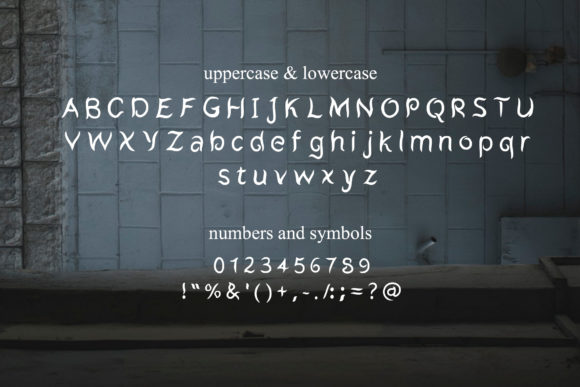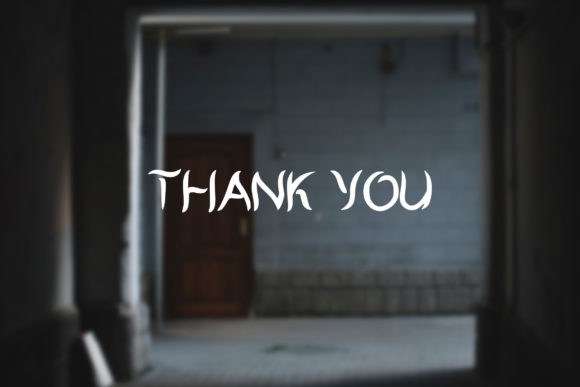
Introduction to Satire Font
Remember that moment when you’re brainstorming ideas for your next creative project, and suddenly, the perfect font pops into your mind? It’s like the missing piece of a puzzle that brings your entire concept to life. For many designers, that moment is often associated with the search for the perfect display font. And if you’re looking for a font that exudes elegance and sophistication, you’re in luck! Introducing the Satire Font, a stunning calligraphy-style display font that’s sure to elevate your designs to the next level.
The Satire Font is a versatile design resource that can be used for a wide range of creative projects, from invitations and greeting cards to branding materials and business cards. Its beautiful, high-quality design makes it perfect for quotes, posters, and any other project where a touch of sophistication is needed.
Key Features of Satire Font
- High-quality, unique typography with a satirical tone, perfect for creative projects and design resources.
- Designed to be highly legible, even at small font sizes, making it an ideal choice for design resources and creative projects.
- Comes in a range of styles, including bold, italic, and regular, to provide versatility and flexibility in your design.
Honest Review: Satire Font
As a designer, I’m always on the lookout for high-quality design resources to elevate my creative projects. The Satire Font caught my attention, and I’m excited to share my honest review.
- ✨ Unique aesthetic: The Satire Font has a distinct, humorous feel that’s perfect for projects that require a lighthearted touch.
- ⚠️ Limited font weights: While the Satire Font is a great starting point, it would be beneficial to have more font weights available for added versatility.
- ⚠️ Not ideal for serious projects: The font’s playful nature might not be suitable for more formal or professional projects.
Overall, the Satire Font is a great addition to any designer’s toolkit, especially for creative projects that require a dash of humor and whimsy. With its unique aesthetic and free download option, it’s an excellent resource to have in your design arsenal.
Satire Font
The Satire Font is a unique design resource that can add a touch of creativity to your projects. With its transparent background and high-quality design, it’s a must-have for any creative project.
Tips for Getting the Most Out of Satire Font
Use the Satire Font in combination with other design elements to create a visually appealing design. Experiment with different font sizes and colors to add emphasis and create contrast.
The Satire Font is commonly used in creative projects, such as posters, flyers, and social media graphics. It’s also useful for creating eye-catching titles and headings in presentations and documents.